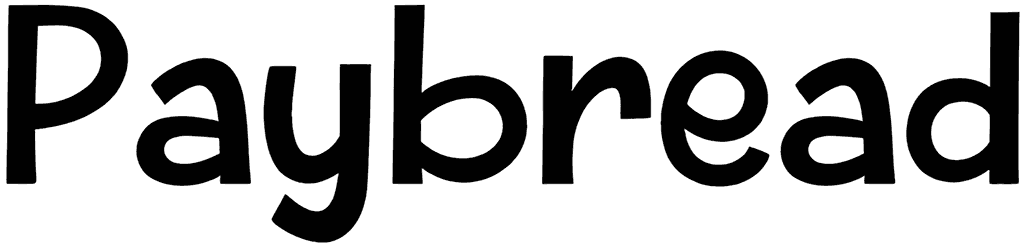
Paybread Font
Is it just us, or does it sound so awesome to pick Paybread when you want to convince people to come and actually pay for your bread? Of course, bread can be anything in a pastry shop, or even food in general.
It just seems like the type of playful font that knows how to make people crave pies, breakfast cereals, cookies, or orange juice, maybe, or even ice cream. Is there anything you can’t do with a font so sweet?